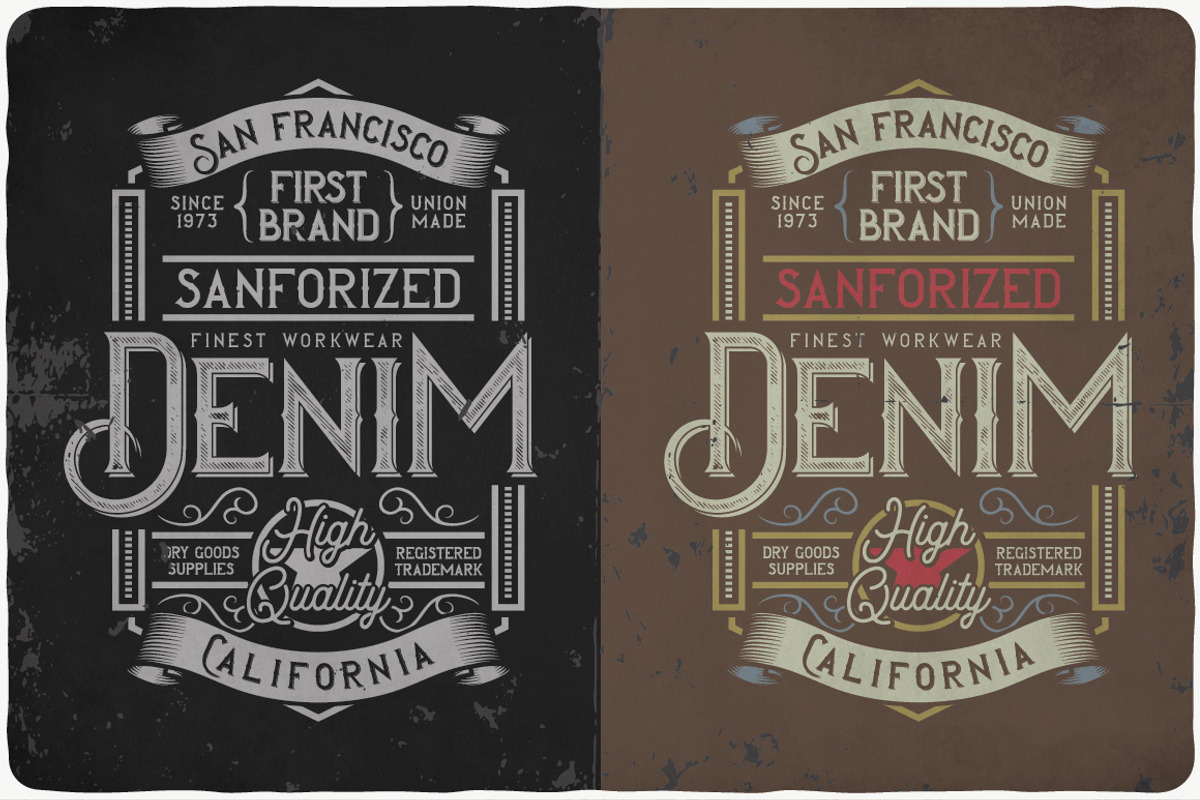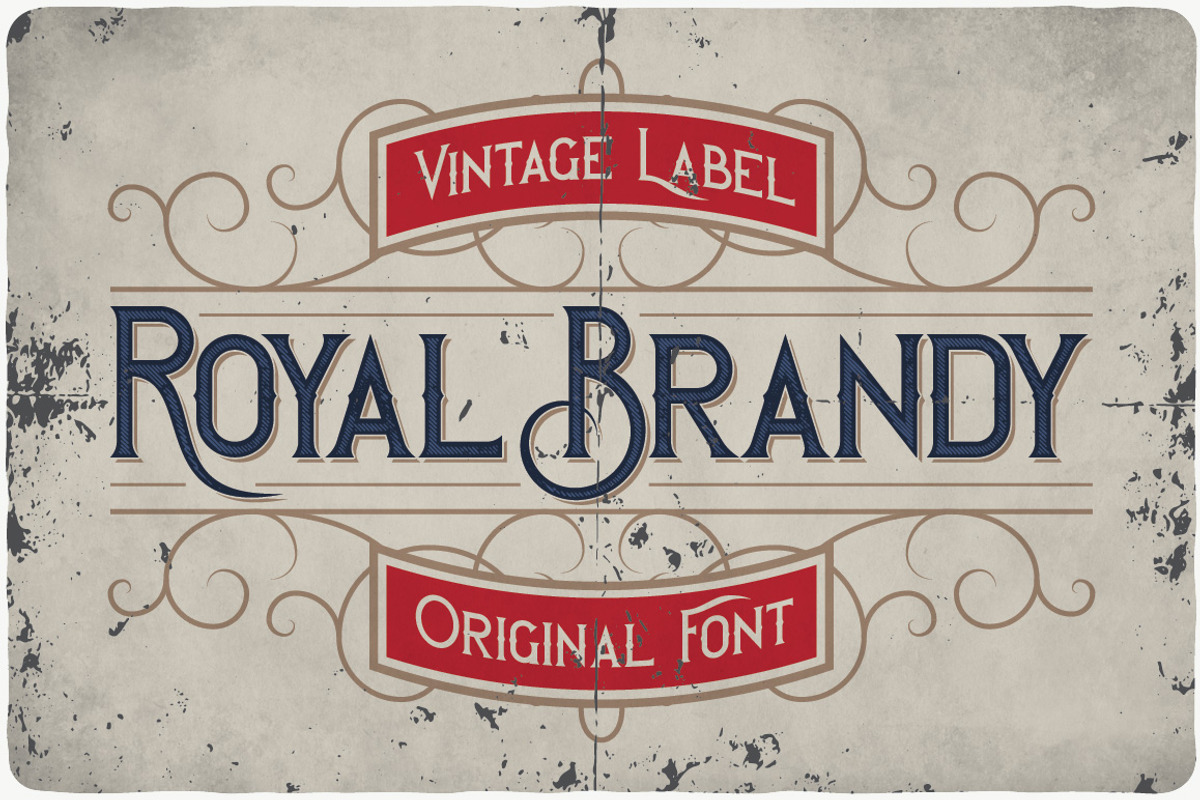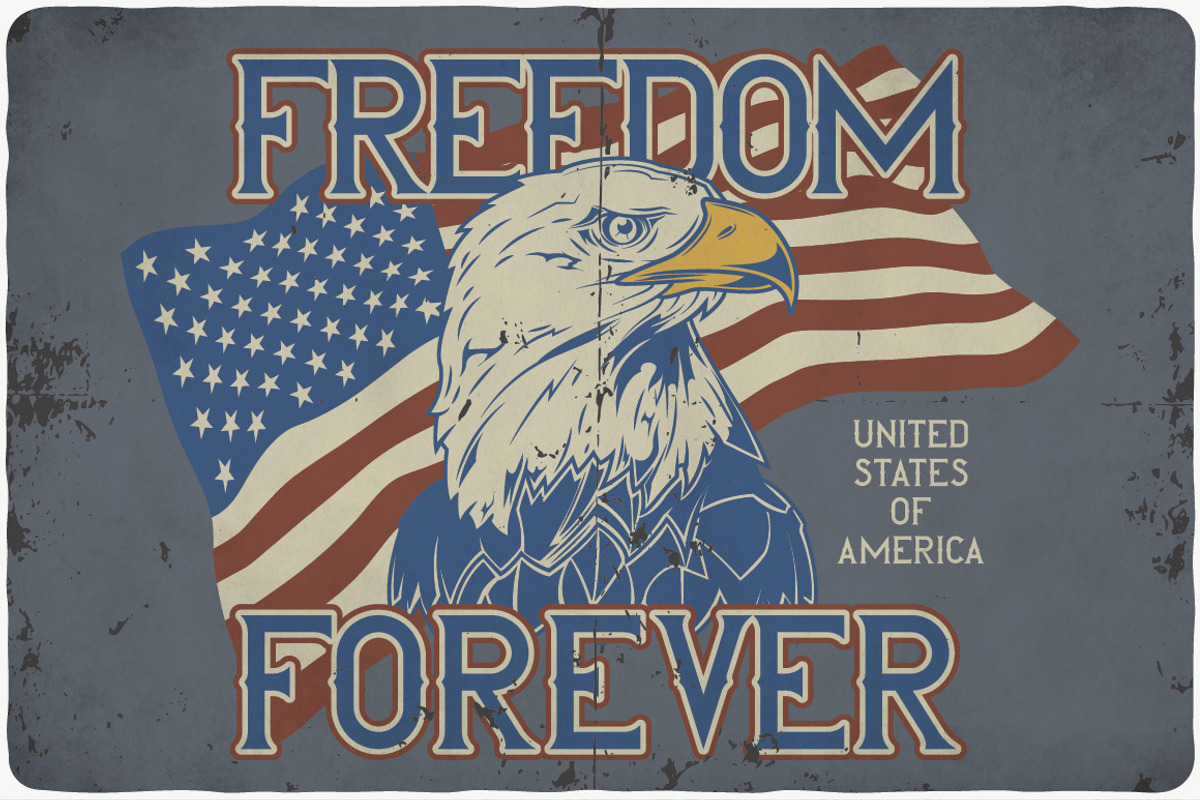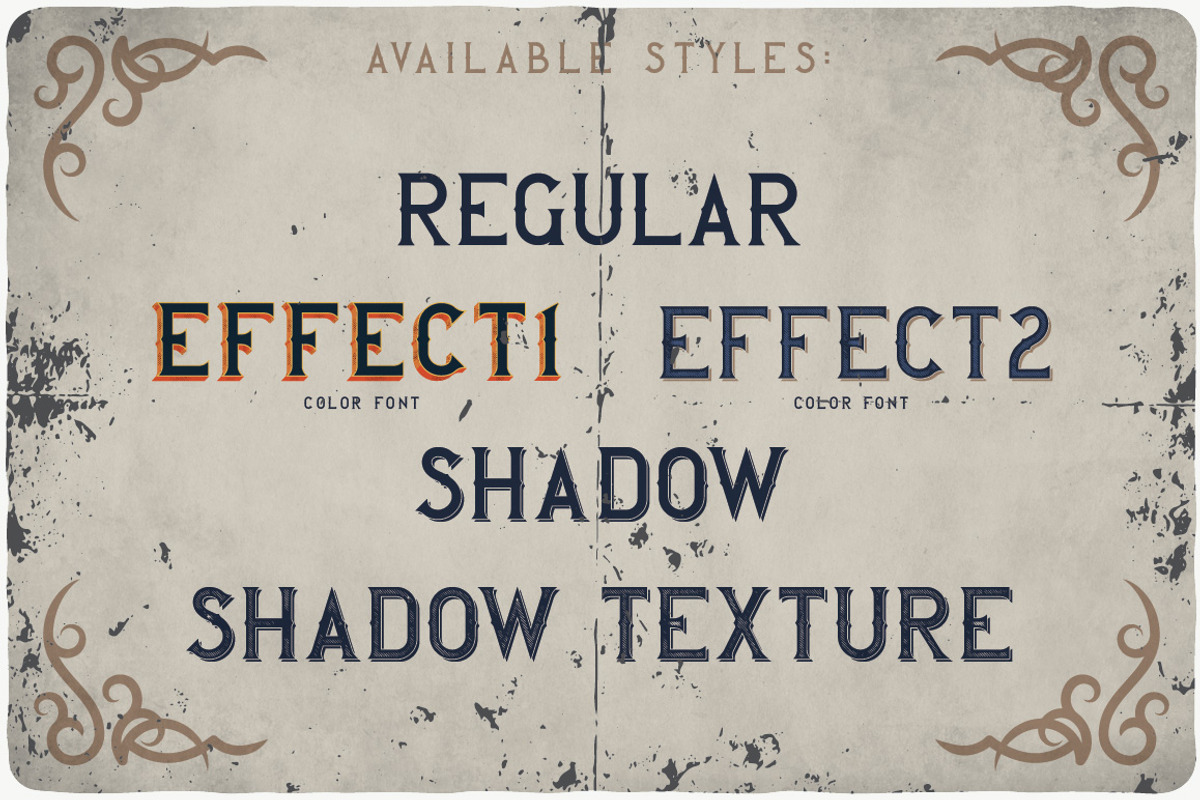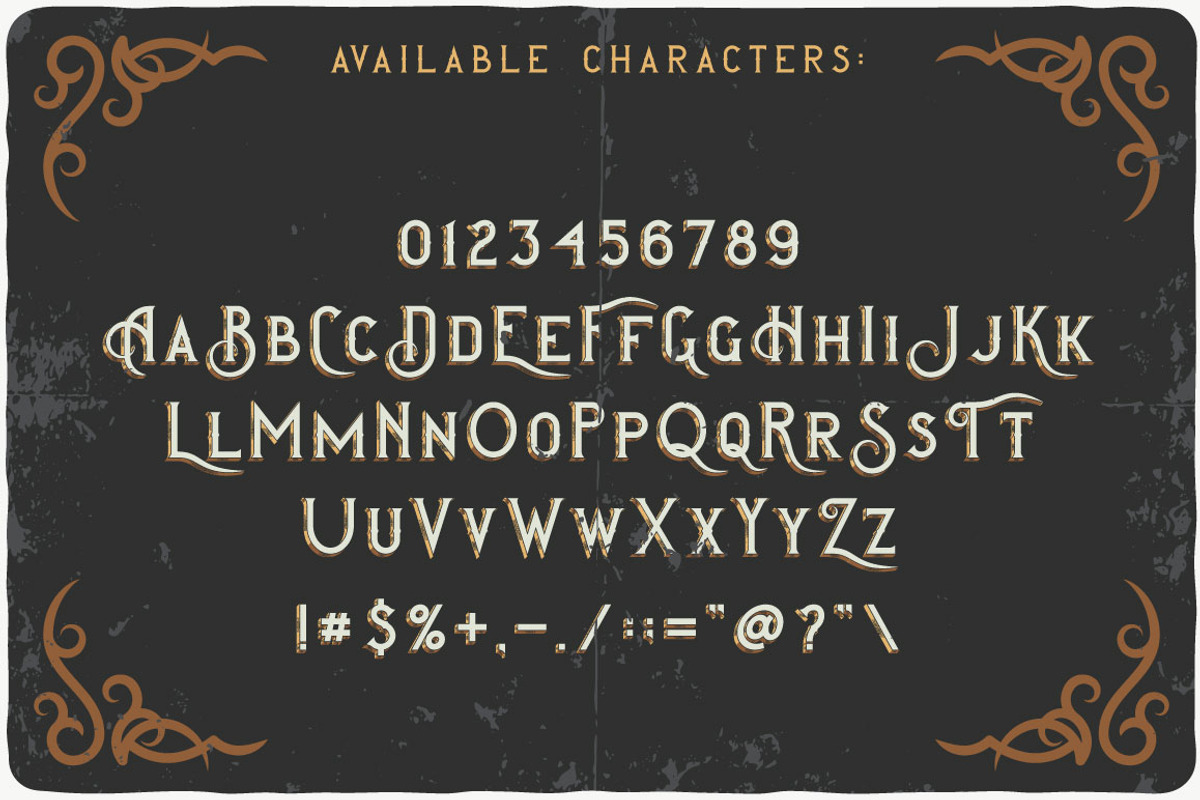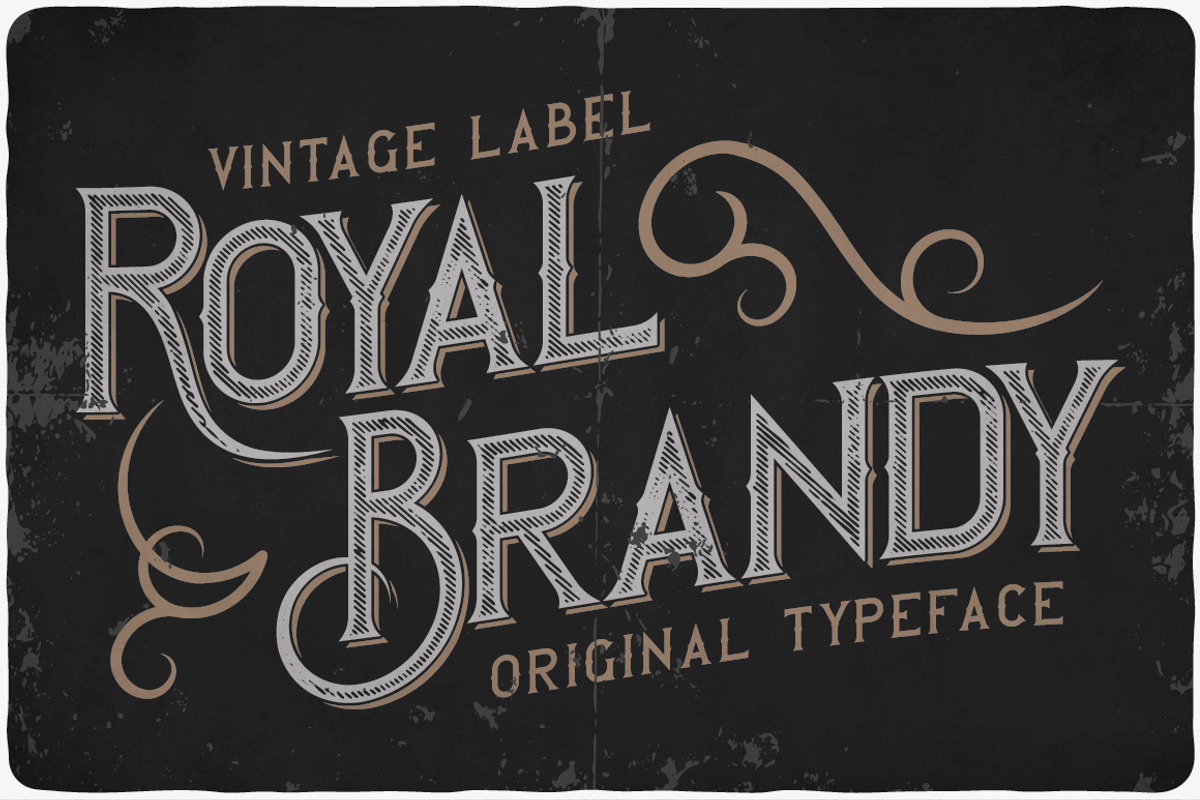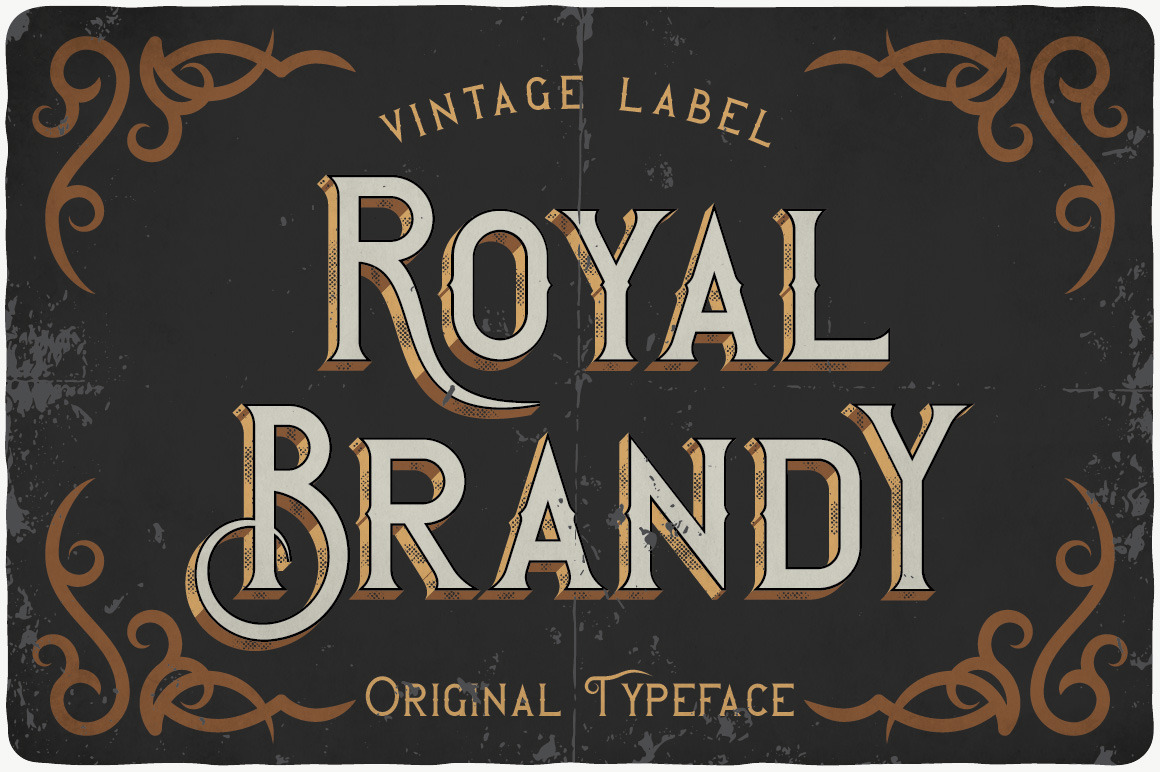
Royal Brandy typeface
Introducing a vintage look label typeface named "Royal Brandy". This typeface includes five styles, for sample look at 4th preview. This font contains different capital and small letters. Also here set of numbers and additional symbols. This typeface will look good on any vintage style design like labels, badges, posters, t-shirts etc.